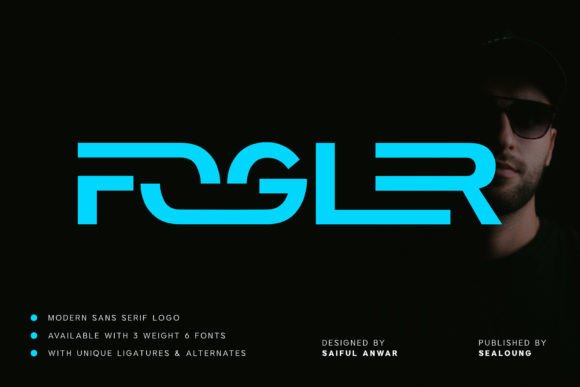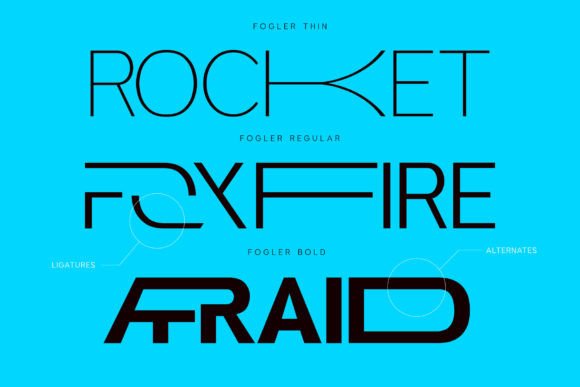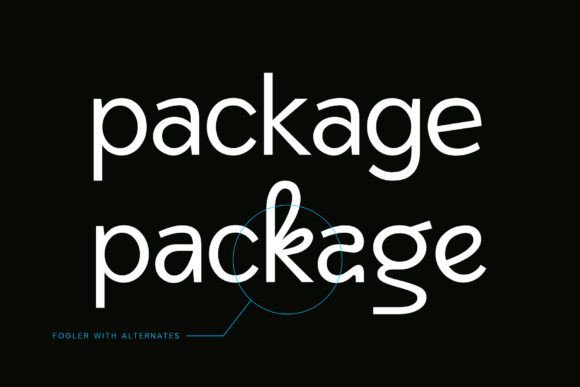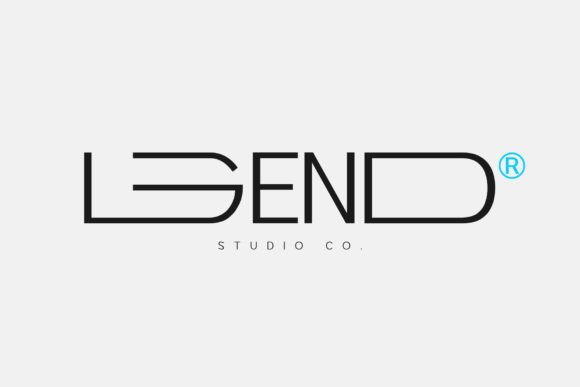
Fogler Font: Modern Sans Serif for Iconic Logo Design & Branding
About the Fogler Font
Crafted with precision, the Fogler Font is ready to bring your ideas to life. Fogler is a Corporate Logo Sans Serif Font that is modern, well-balanced, and minimalist with a unique and iconic design. This sans serif font allows for easy combination and variation using ligatures and alternates, making it perfect for creating distinctive shapes in seconds. Ideal for branding projects, logos, posters, social media posts, advertisements, product packaging, designs, labels, photography, watermarks, invitations, stationery, and other projects, it offers high legibility.
Fogler’s clean lines and geometric structure make it particularly effective for headlines, logos, and short-form text in branding materials and advertising. Its minimalist nature ensures it won’t overwhelm, allowing imagery and other design elements to shine. However, its limited character set and relatively high x-height may make it less suitable for extended body text or UI elements requiring high readability in smaller sizes.
Pairing Fogler with a classic serif like Garamond or a warmer, humanist sans-serif like Lato offers a sophisticated contrast. For a more playful feel, consider pairing it with a script font like Allura, while a geometric sans-serif like Futura would enhance its modern, corporate personality.
Fogler projects a modern, confident, and sophisticated personality, ideal for brands aiming for a clean, minimalist aesthetic. It’s best suited for projects emphasizing visual impact and clarity, and where a sense of authority and understated elegance is desired.
Fogler Font Usage Examples
Fogler Font Example